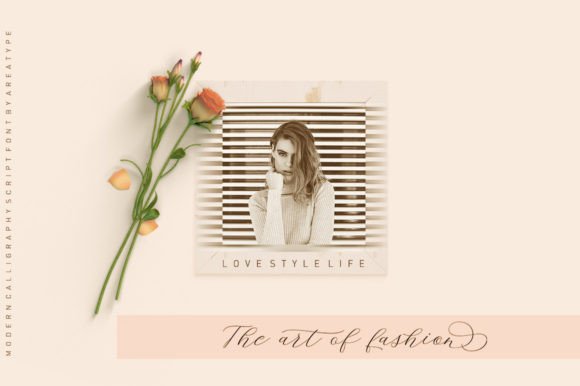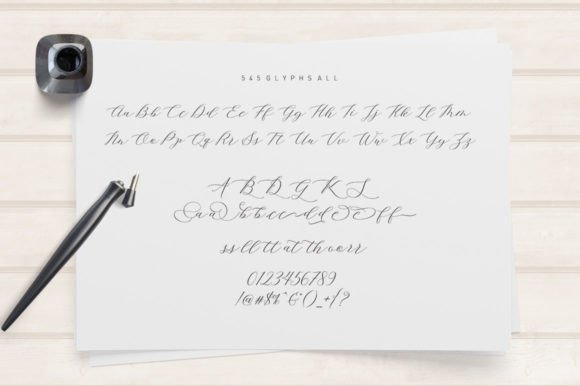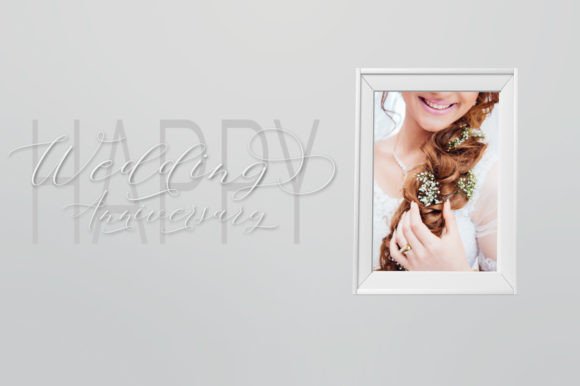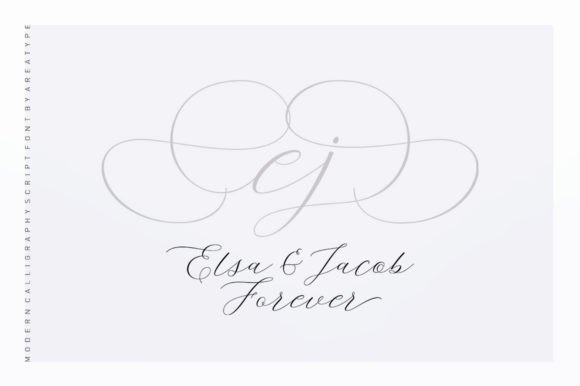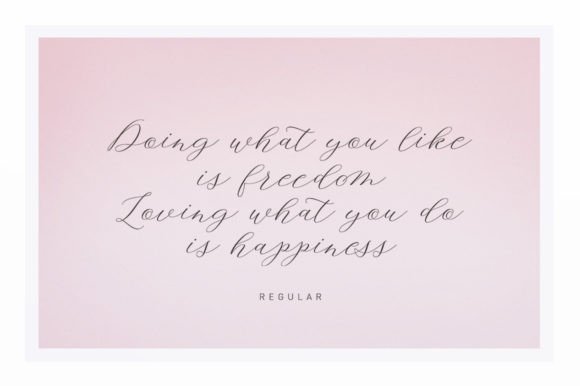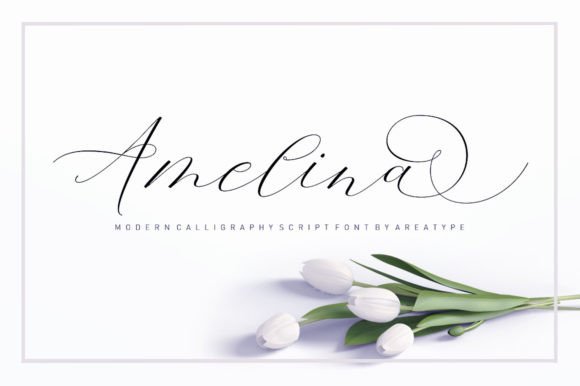
When Words Become Art
There’s something magical about holding a beautifully crafted card in your hands, feeling the weight of the paper and the care that went into designing the words. For designers, this moment is what it’s all about – creating something that speaks directly to the heart of the recipient. Whether it’s a wedding invitation, a thank you note, or a simple greeting, the right font can make all the difference.
That’s where the Amelina Duo Font comes in – a lovely duo script font that adds a touch of elegance and personality to any design. With its beautiful, flowing lines and PUA encoding, this font is the perfect tool for designers who want to create truly unique and personalized designs.
Amelina Duo Font Key Features
- Font Family: Amelina Duo, a unique and elegant script font.
- Font Size: 10,000+ glyphs, making it suitable for a wide range of applications.
- Resolution: Supports high-resolution displays, including Retina and 4K screens.
- Unique Characteristics: Features a distinctive, hand-painted feel with subtle brush strokes and organic textures.
Amelina Duo Font Review
As a designer, I’m always on the lookout for unique and versatile fonts to add some personality to my projects. The Amelina Duo Font is a fascinating find, and I’m excited to share my honest review.
- The Amelina Duo Font has a beautiful, elegant script style that’s perfect for wedding invitations, event branding, or any project that requires a touch of sophistication.
- The font is highly customizable, allowing you to adjust the weight, spacing, and style to fit your design needs.
- The font includes a range of ligatures and alternate characters, making it a great choice for designers who want to add some visual interest to their work.
- The Amelina Duo Font may not be the best choice for projects that require a lot of bold or heavy text, as the font’s weight is somewhat limited.
- The font’s script style can be quite ornate, which may not be suitable for designs that require a clean or minimalist look.
Overall, I’m impressed with the Amelina Duo Font’s unique style and versatility. While it may have some limitations, it’s a great choice for designers who want to add a touch of elegance and sophistication to their projects. I’d definitely consider using it again in the future.
The Amelina Duo Font is a versatile font that can be used for various design projects, including:
- Print and digital marketing